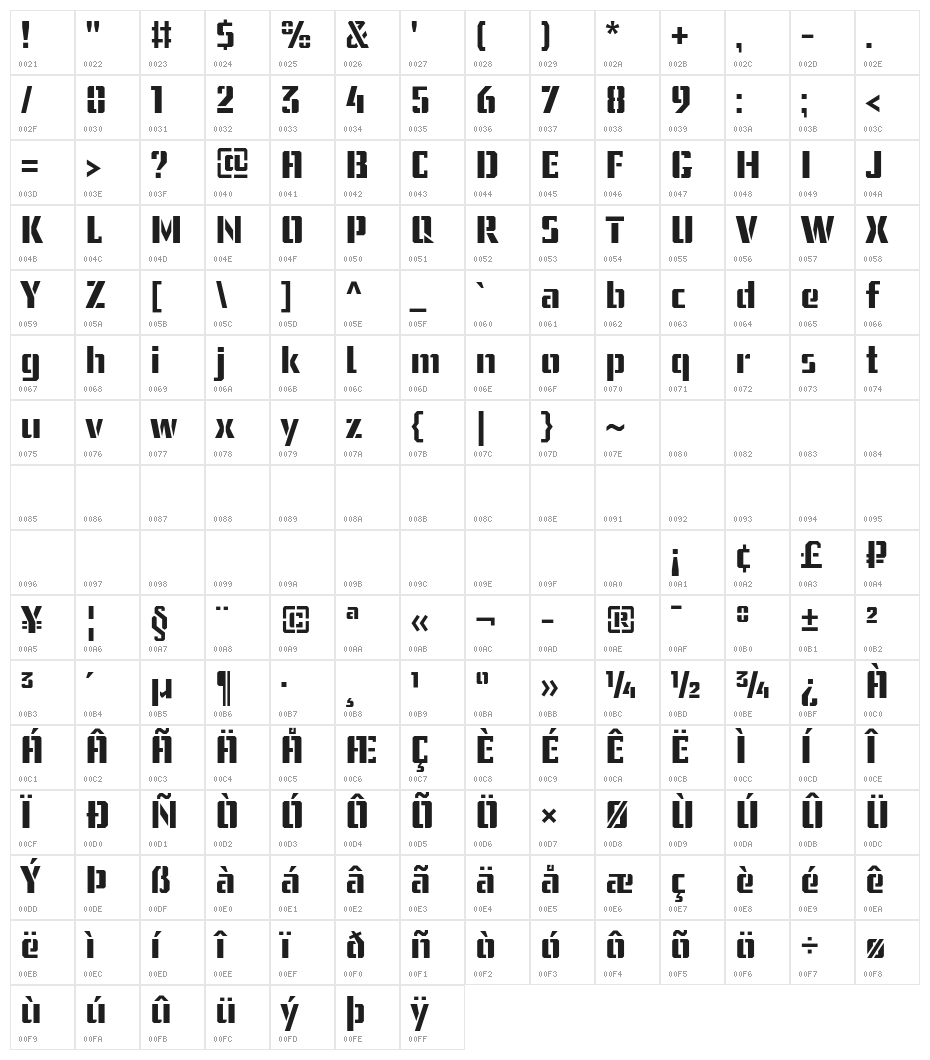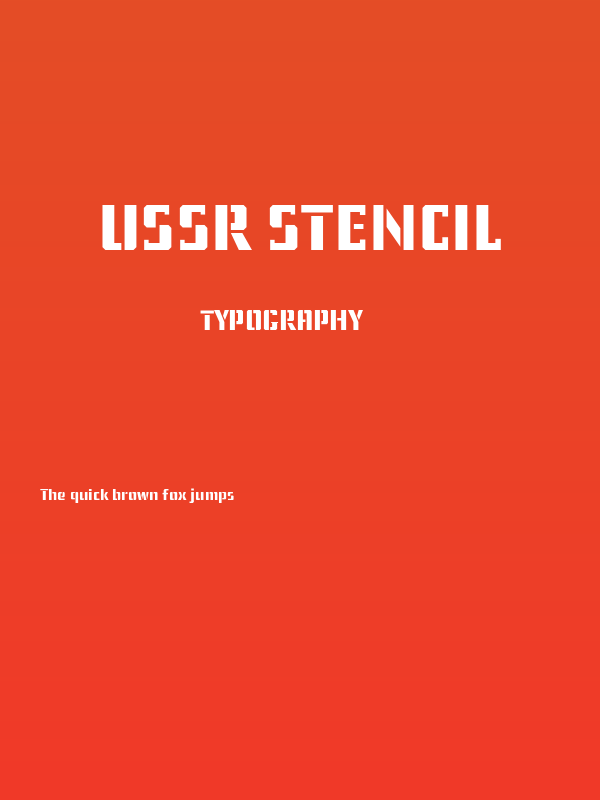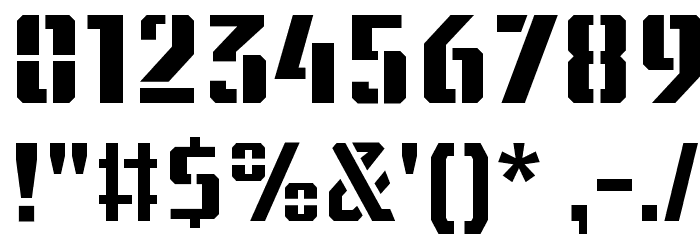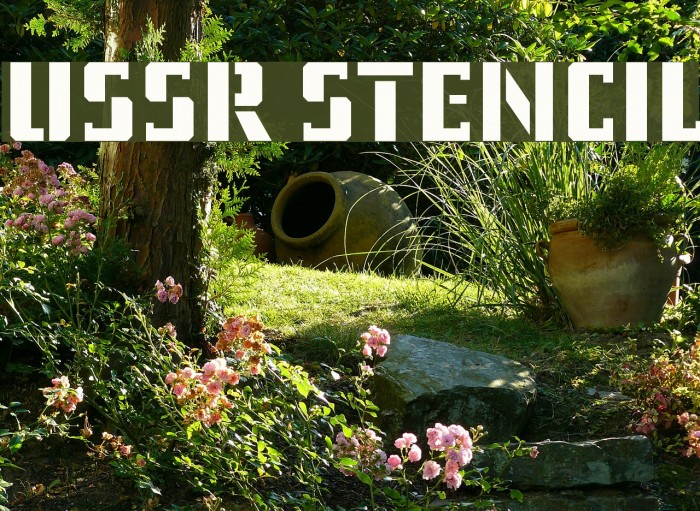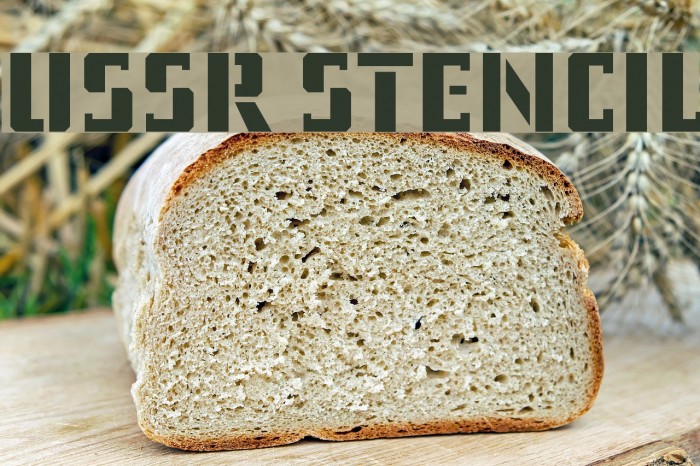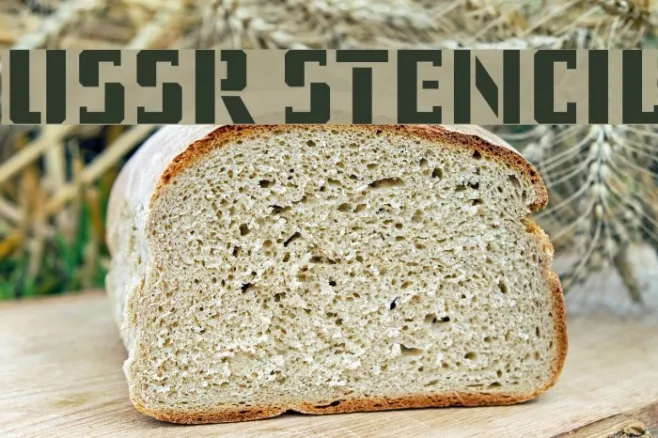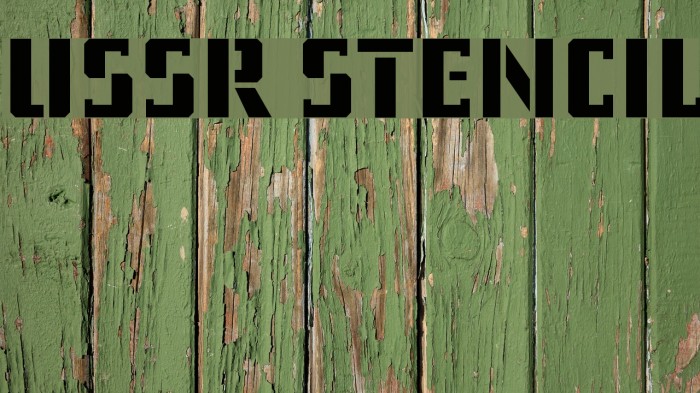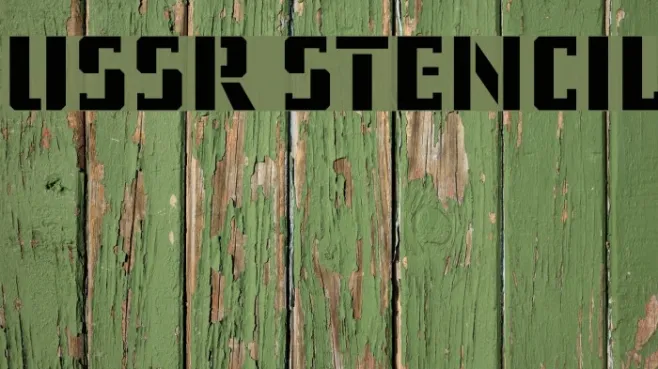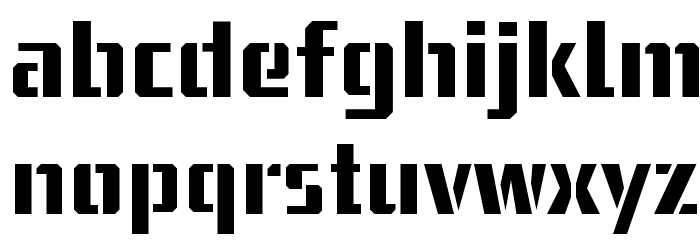
USSR STENCIL Font
USSR STENCIL Description
This font features a bold, stencil-like design with strong geometric shapes and sharp angles. The characters are constructed with solid, blocky forms that are interrupted by strategic gaps, typical of stencil fonts. This design gives it a rugged, industrial feel, reminiscent of military or utilitarian signage. The uppercase and lowercase letters maintain a consistent style, with the uppercase being more pronounced. Numbers and special characters follow the same bold, stencil pattern, ensuring uniformity across all glyphs. The font's distinct style makes it highly legible and impactful, suitable for attention-grabbing applications.
| Overall Style | Industrial, Rugged |
| Use Case | Headlines, Logos, Signage |
| Proposed Projects | Ideal for military-themed designs, industrial branding, posters, and signage. |